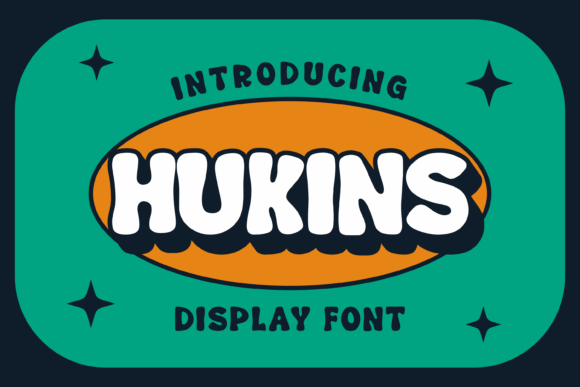
Meet Hukins, the font that will cast a spell on your designs! Its eerie, wavy lines and hauntingly whimsical shapes are perfect for conjuring up spine-tingling horror posters that will make your audience scream with delight.
This display font is a true masterpiece, crafted with meticulous precision to evoke the otherworldly charm of a haunted house. Each letter dances and sways, as if possessed by an unseen force, creating an atmosphere of suspense and intrigue.
But don't let its dark allure fool you – Hukins is also surprisingly versatile, lending itself to a myriad of creative endeavors. From eerie invitations to spine-chilling book covers, this font will add a touch of the macabre to any project that dares to embrace its wicked charm.
So, if you're ready to unleash your inner horror master, download Hukins today and let your imagination run wild. Its PUA encoding ensures effortless access to all its glyphs and swashes, making it a breeze to create breathtaking designs that will haunt your audience long after they've turned the page.